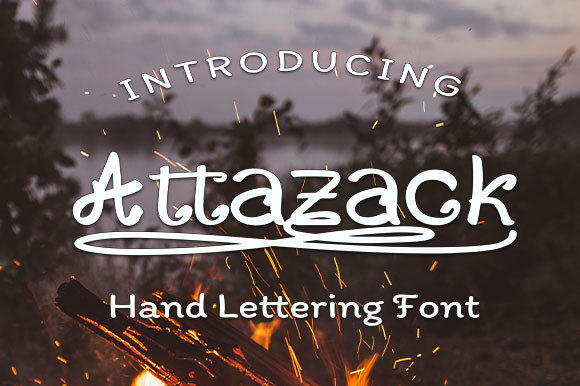
The Font that Stole My Heart: A Deep Dive into Attazack
I still remember the day I stumbled upon the perfect font for a client’s project. I had been searching for what felt like an eternity, trying out font after font, but none seemed quite right. That was until I discovered Attazack – a unique, casual, and interestingly designed handwritten font that instantly captured my attention. In this article, I’ll share my journey with Attazack, its features, and how to make the most of this beautiful font.
My Love Affair with Attazack
As a designer, I’m always on the lookout for fonts that can elevate my projects and make them stand out. Attazack has quickly become one of my go-to fonts, and for good reason. Here are a few things I love about it:
• ✨ Unique and playful design: Attazack has a distinct, hand-crafted feel that’s perfect for projects that need a personal touch.
• ✅ PUA encoded: This means that accessing glyphs and swashes is a breeze, giving you even more creative freedom.
• 💯 Balanced and varied: The font strikes the perfect balance between being too thin or too thick, making it versatile and easy to use.
While Attazack is an amazing font, it’s not without its quirks. Here are a few things to keep in mind:
• 🤔 Limited use cases for very formal projects: Due to its casual nature, Attazack might not be the best fit for very formal or corporate projects.
• ⚠️ Some characters may require manual adjustment: As with any font, you might need to tweak certain characters to get the perfect look, especially when using OpenType features.
The Story Behind Attazack
Attazack was designed with the intention of creating a font that’s both unique and versatile. The designer aimed to craft a font that’s not too thin or too thick, but rather balanced and varied. The result is a font that’s perfect for a wide range of projects, from creative hobbyist endeavors to professional design work.
What is Attazack? Attazack is a unique, casual, and interestingly designed handwritten font.
Is Attazack PUA encoded? Yes, Attazack is PUA encoded, making it easy to access glyphs and swashes.